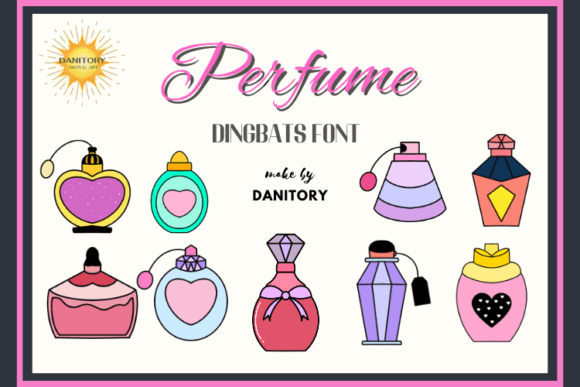
In a world of digital artistry, the Perfumes Font family erupts as a symphony of visual allure, a daring dance of dingbats that captivates the senses and stirs the soul. Each character, a stroke of genius, a whispered incantation that casts a spell on the beholder, inviting them into a realm of enchantment.
Meet 'Perfume', the fragrance of elegance and grace, a font that dances across your screen like a delicate scent, leaving a trail of sophistication and charm in its wake. Witness the birth of 'Perfume Script', where each letter unfurls like a handwritten declaration of love, its curves as soft as a whispered promise, its edges as sharp as a lover's longing. And behold, 'Perfume Sans', the epitome of modern refinement, a symphony of straight lines and gentle curves, a timeless classic that exudes an air of understated luxury.
With 'Perfume Dingbat', the ordinary becomes extraordinary. Unleash a world of delightful symbols, whimsical motifs, and enchanting icons that add a touch of playfulness and whimsy to any creation. Let your imagination soar, let your creativity run wild, as you weave these visual treasures into a tapestry of visual delight.
Step into the realm of digital artistry with the Perfumes Font family, where fonts are not just letters, but portals to a world of elegance, enchantment, and sheer wonder. Discover the endless possibilities, the boundless horizons that await you within this typographical treasure trove.